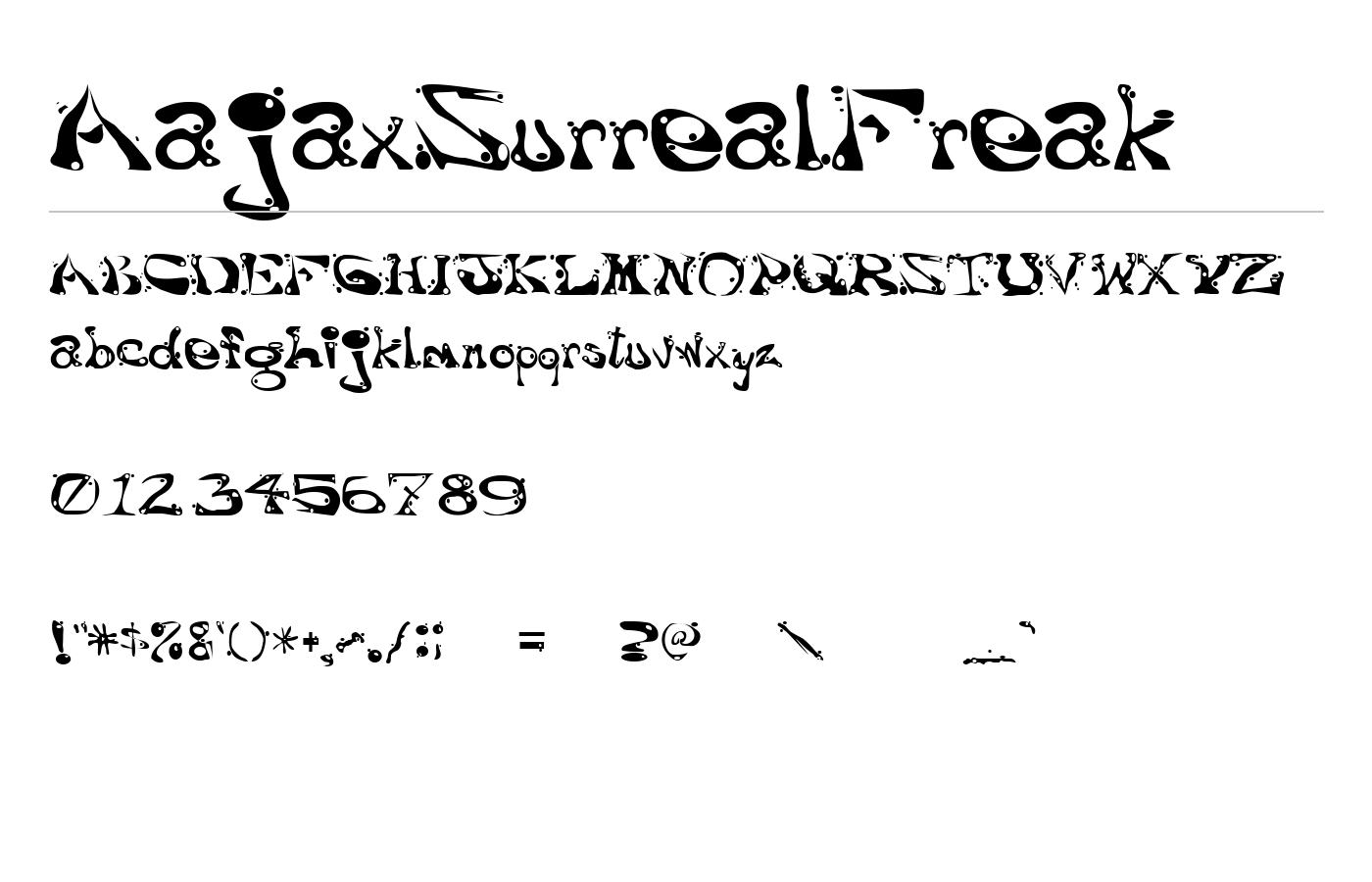
AajaxSurrealFreak is a highly stylized, whimsical display font that blends surreal and quirky design elements with a hand-crafted feel. Its irregular shapes, playful swirls, and distinctive dot embellishments give it a bold, artistic personality ideal for creative projects seeking an eccentric, eye-catching look. This font is perfect for headlines, posters, or branding that aims to stand out with a unique, avant-garde vibe.
AajaxSurrealFreak Font
About AajaxSurrealFreak Font